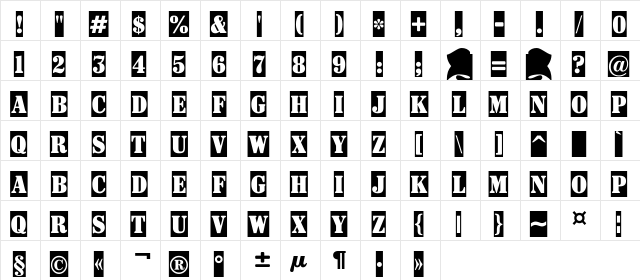
a_SignboardTitulNrSl Regular
Design Context for a_SignboardTitulNrSl Typeface
a_SignboardTitulNrSl offers clean, dependable letterforms without strong stylistic allegiance, making it a practical choice for designers who need flexibility.
Pro Tip: Pair a_SignboardTitulNrSl with a font of contrasting weight or personality to build a more expressive typographic hierarchy.